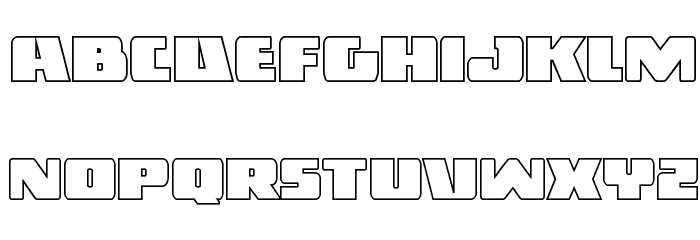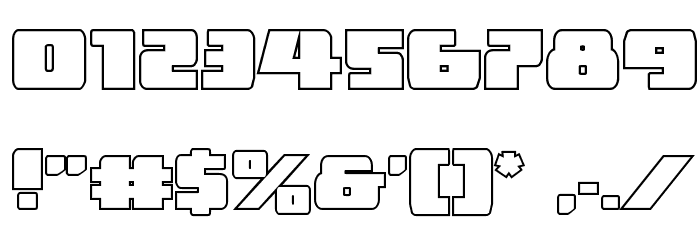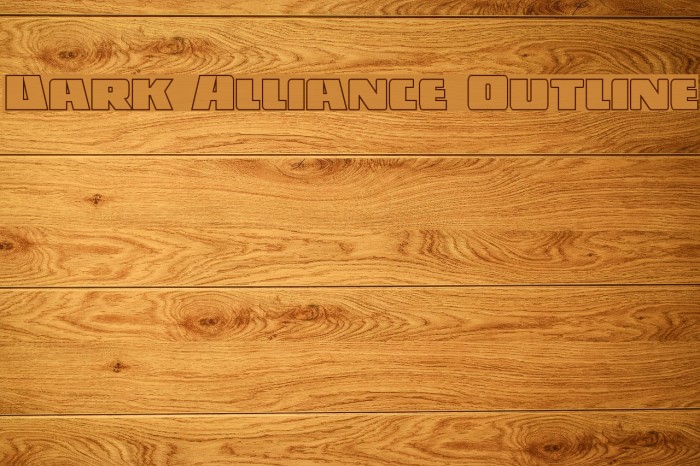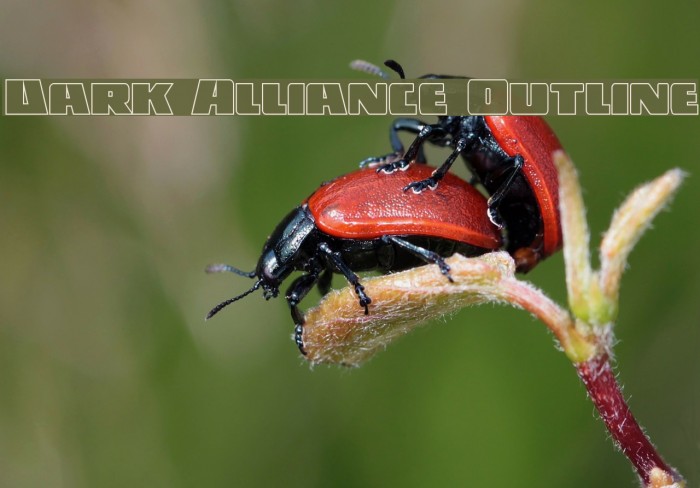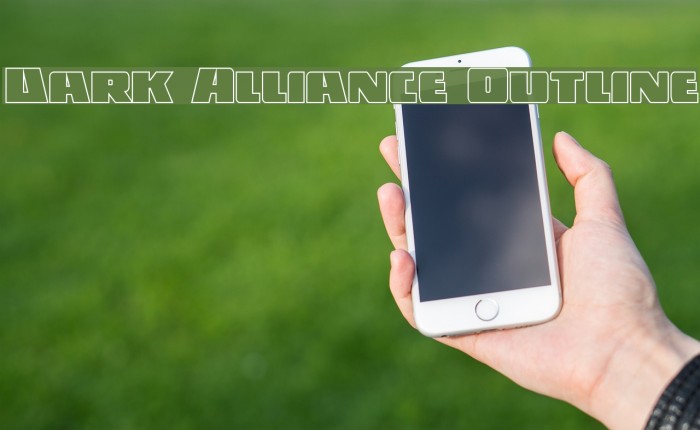
Dark Alliance Outline Font
This font features a bold, geometric outline style that gives it a strong, futuristic appearance. The characters are constructed with sharp angles and straight lines, creating a sense of precision and modernity. The uppercase and lowercase letters maintain a consistent height, contributing to a uniform and structured look. The numerals and special characters follow the same design principles, ensuring a cohesive visual identity across all glyphs. The outline nature of the font adds a unique dimension, making it suitable for eye-catching designs where a bold statement is desired.
A bold, geometric outline font with a futuristic and structured appearance.
- Proposed Projects: Ideal for sci-fi themed projects, video game titles, posters, and branding that requires a modern and bold aesthetic.
- Overall Style: Futuristic, Modern